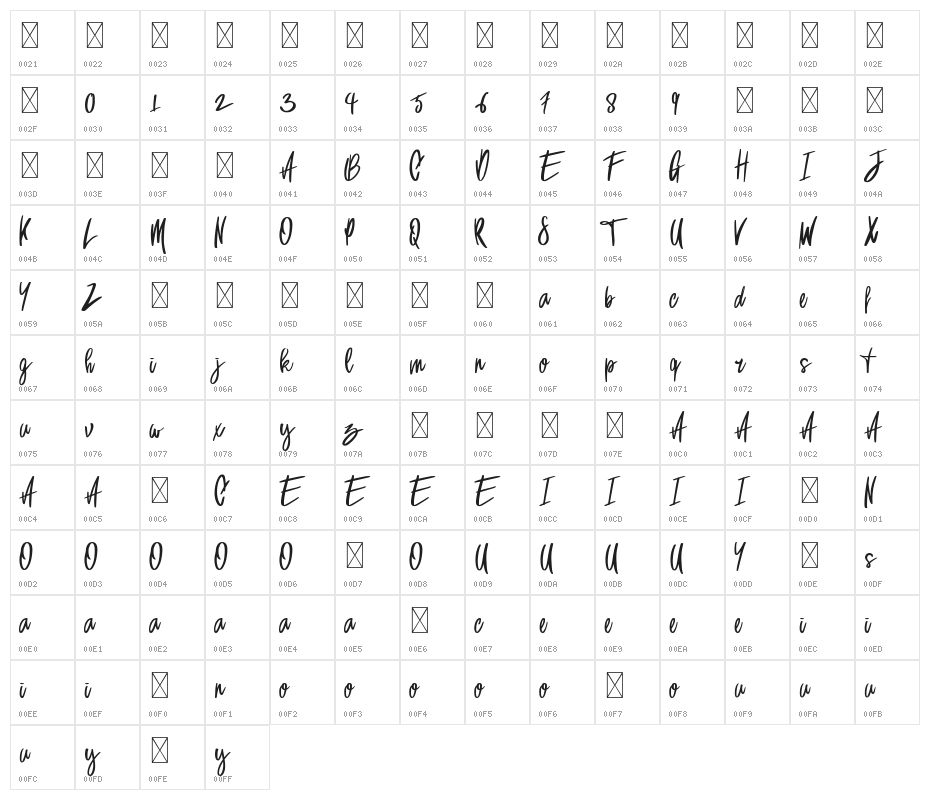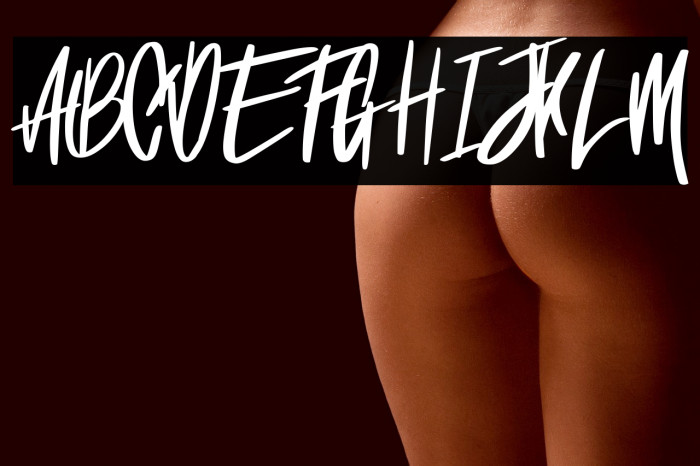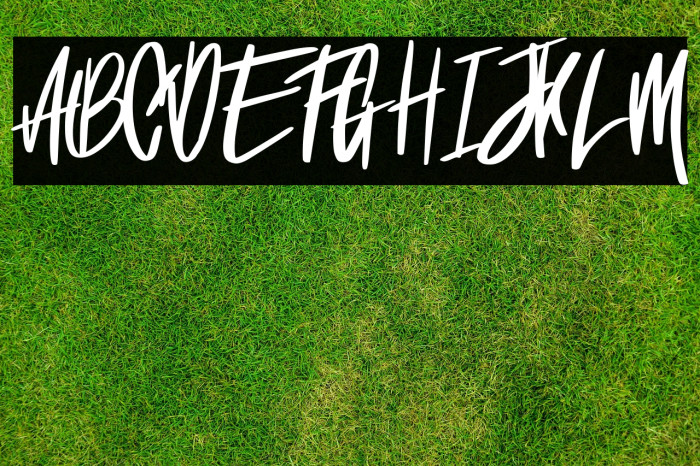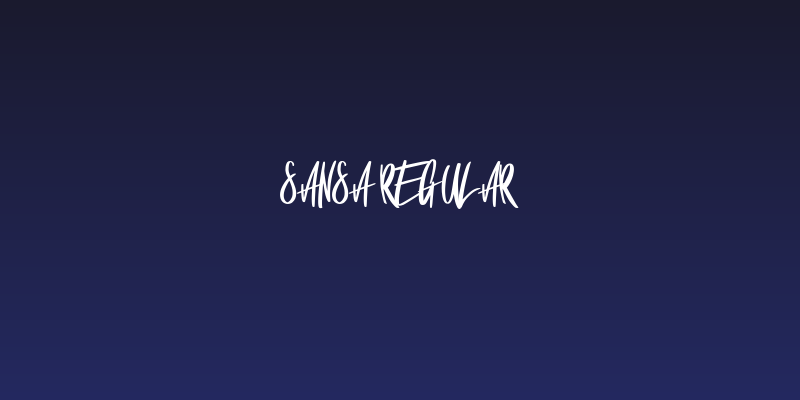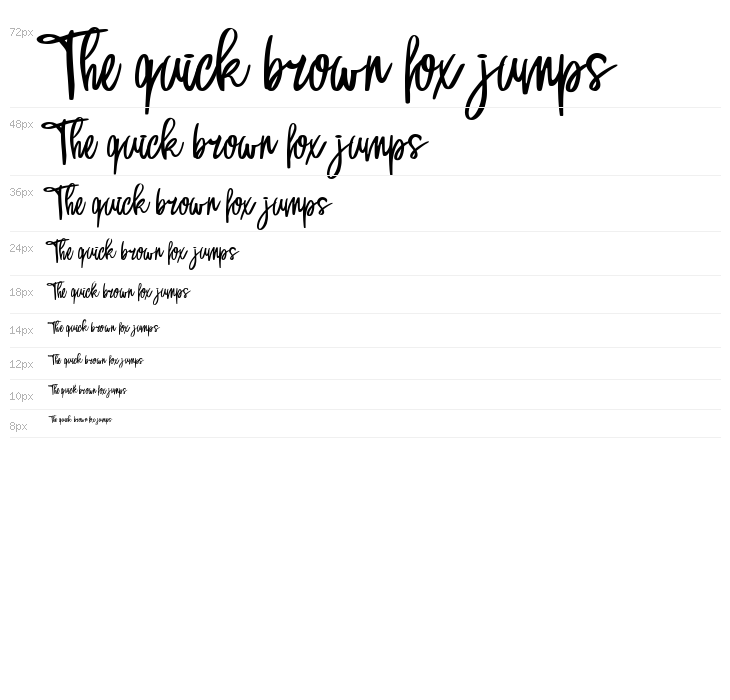
Sansa Regular Font
Sansa Regular Description
This font features a dynamic and energetic handwritten style, characterized by its flowing, cursive letterforms. The uppercase letters are bold and expressive, with a slight slant that adds to the casual, informal feel. The lowercase letters maintain the same lively quality, with smooth curves and a consistent stroke width. The numerals are equally playful, matching the overall aesthetic. This font is perfect for projects that require a personal touch, such as invitations, greeting cards, or branding materials that aim to convey a sense of warmth and approachability.